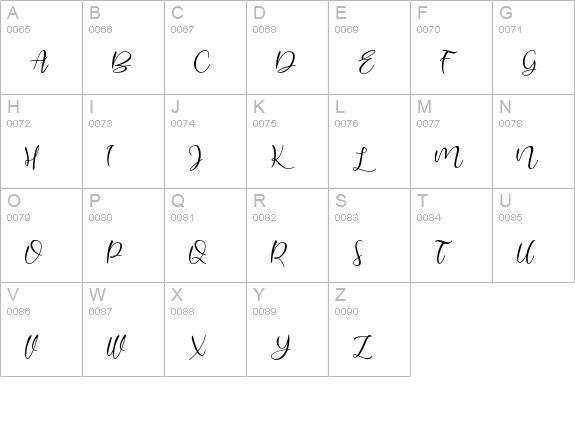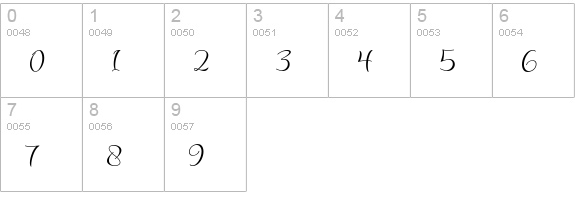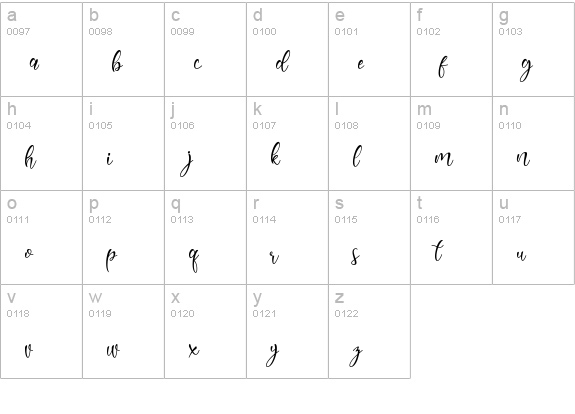
Lovely Coffee is a free for personal use font in the Script > Calligraphy category, designed by arukidzfl. It has been downloaded 451 times and is available for Windows, Mac and Linux.
Lovely Coffee font is a charming and elegant typeface that exudes warmth and sophistication. With its delicate curves and graceful letterforms, this font is perfect for adding a touch of class to your designs. Whether you're working on a wedding invitation, a branding project, or a social media post, Lovely Coffee font will make your text look effortlessly stylish.